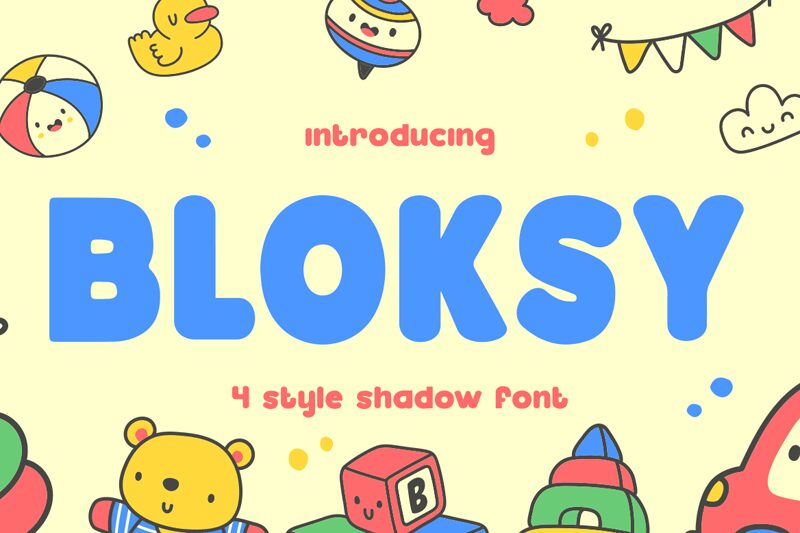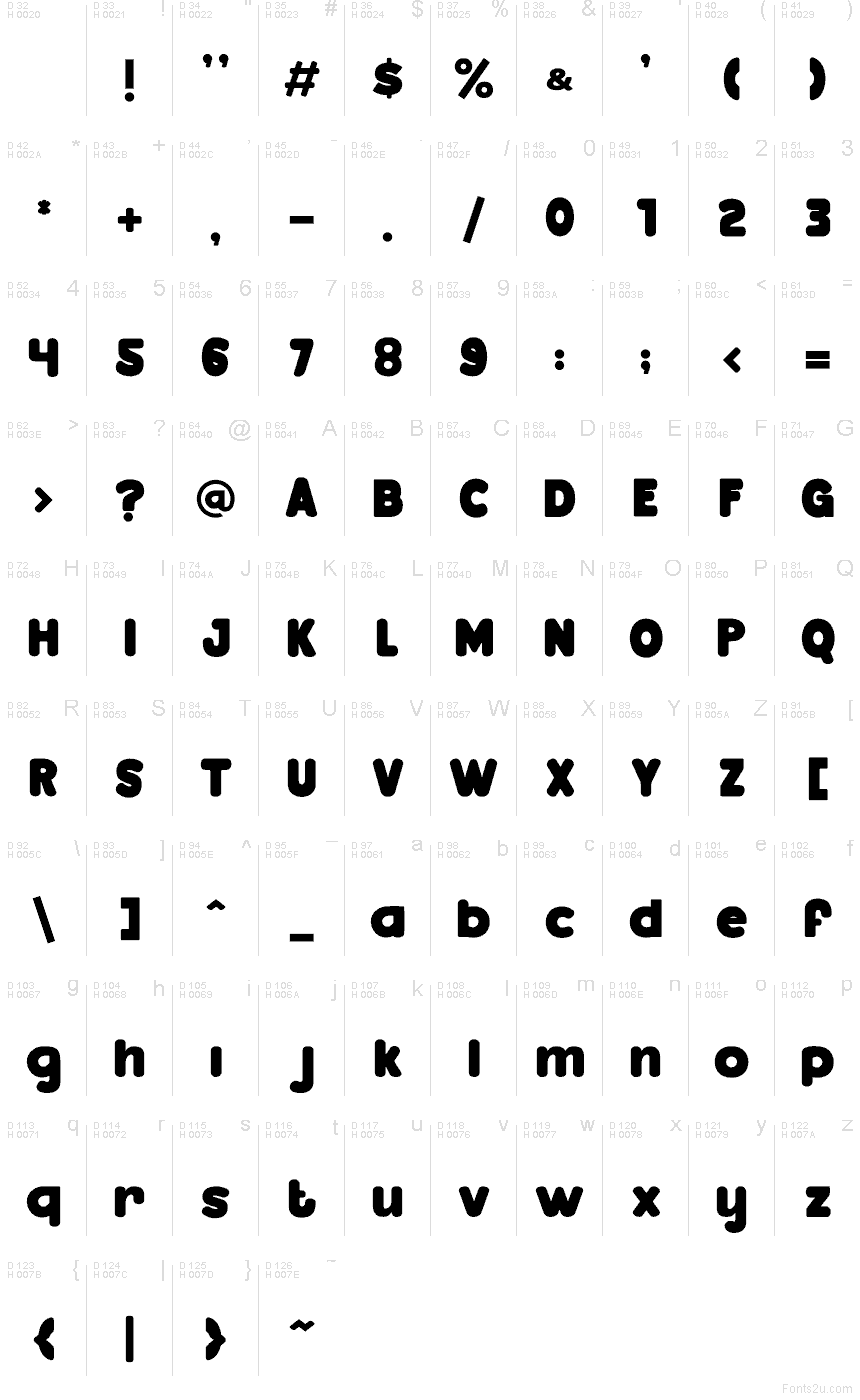
Bloksy One by Shanaf Studio is a free cartoon display font with big, pillowy letters and a soft, squashed bounce. The rounded corners, swollen curves, and tight, blocky rhythm give it a playful comic tone that feels friendly rather than slick.
It fits naturally in kids' branding, snack packaging, sticker graphics, YouTube thumbnails, and short poster headlines where the letters need to feel bold and cheerful without turning sharp or messy. As a free font, it also makes sense for title cards, app splash words, and quick social graphics, especially when you want a compact wordmark with a toy-like, inflated look.